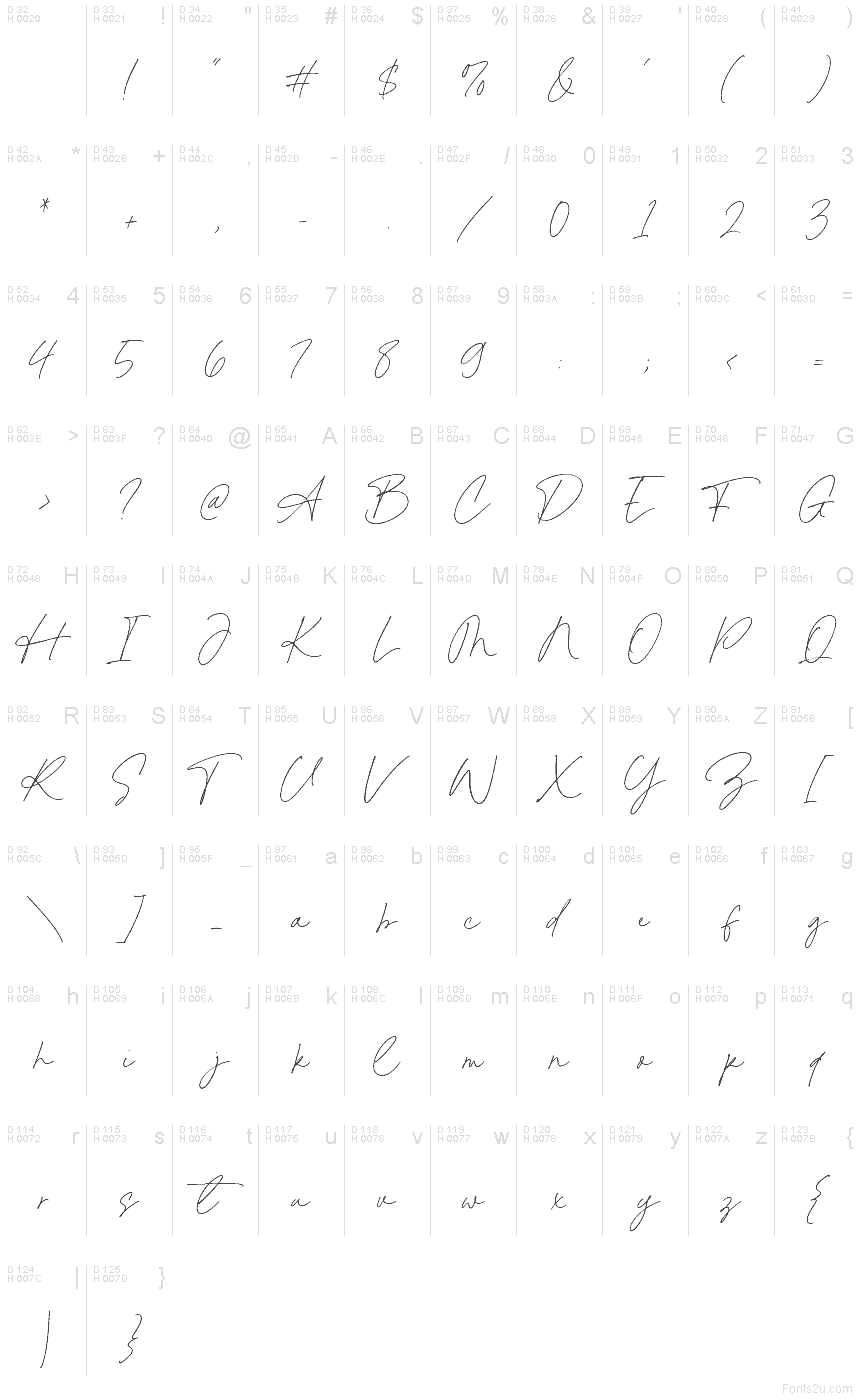
Fiance Rosalie
Fiance Rosalie font by Timur Type is a free handwritten font that draws its charm from feather‑light monoline strokes and breezy, unforced loops. It reads like an effortless signature—elegant without stiffness—thanks to its even rhythm and airy flow that leaves just enough white space to feel modern and chic.
Using Fiance Rosalie, headlines and names glide across wedding invitations, boutique logos, beauty packaging, Instagram graphics, event menus, and stylish thank‑you cards. This free font shines when you want sophistication with a casual wink, keeping messages warm yet refined. Simple tip: pair it with a quiet, geometric sans serif and give it a touch more size to let those delicate lines sing.
Fiance Rosalie Font also supports multilingualism.